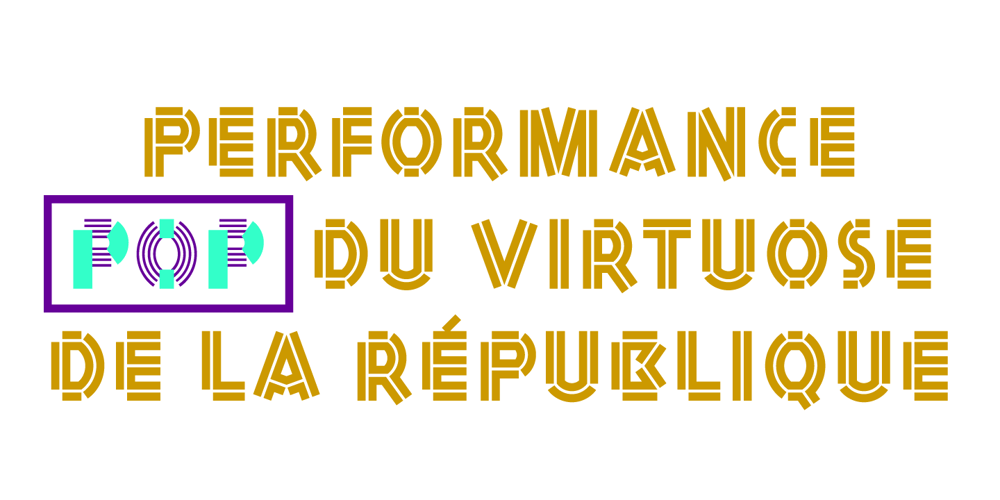
Marianne Font Family was designed by Benoît Bodhuin and published by bb-bureau. Marianne contains 3 styles and family package options. Marianne is a headline lineal designed by Benoît Bodhuin Protest writing (Caps only) made of tape modules joined by drawing a typical notch. 3 styles – Inline, Outline and Solid – each with variants Opentype, many original ligatures (including ‘HTTP’…) and alternative ‘A’ leaning on his right leg, allow many combinations and uses.